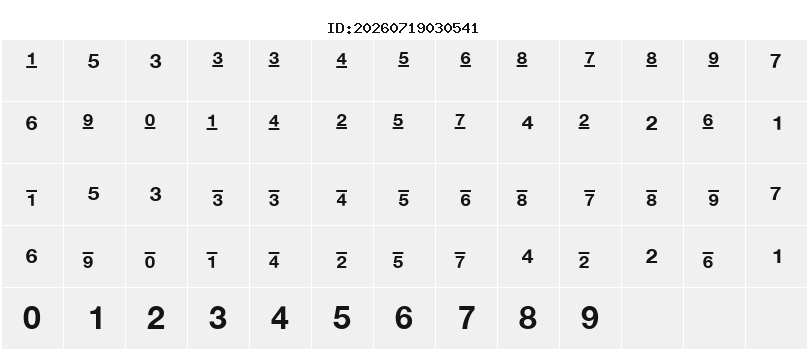
Context Fractions SSi Preview
• Font Name: Context Fractions SSi
• Font Style: Fractions Bold
• Full Font Name: Context Fractions SSi Fractions Bold
About Context Fractions SSi.ttf
Context Fractions SSi.ttf is a modern, elegant sans-serif font designed for ultimate readability and visual harmony. Perfect for branding, headlines, web design, and print materials.